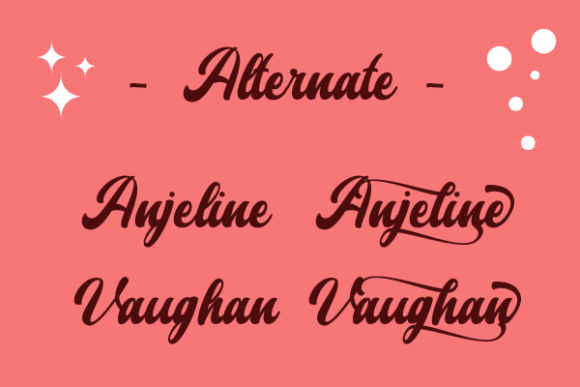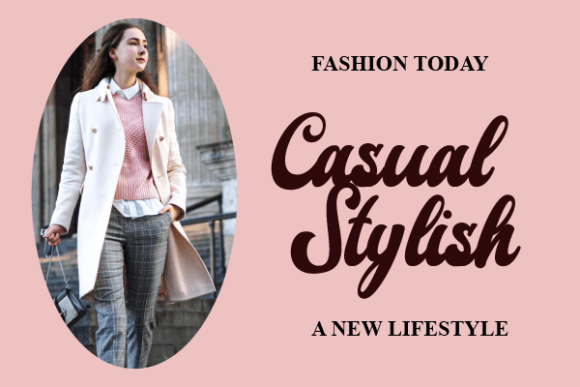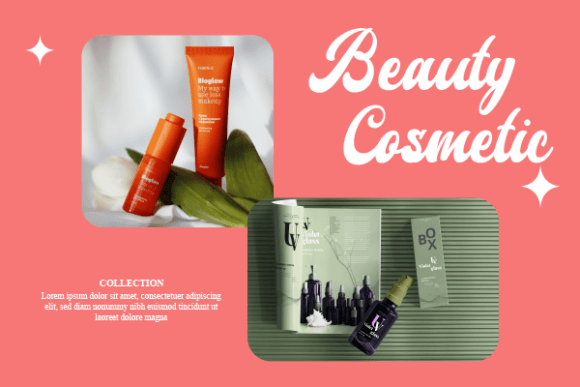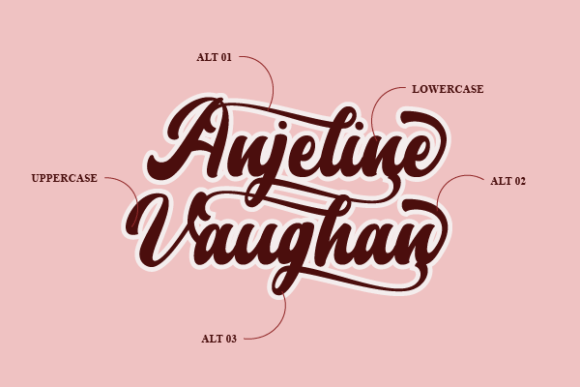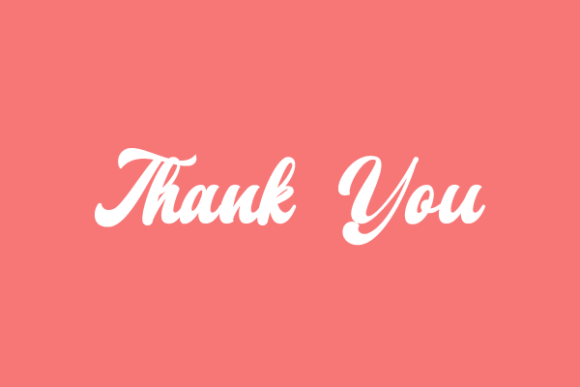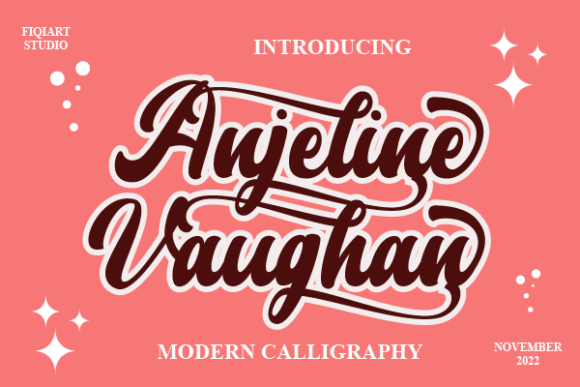
Introducing Anjeline Vaughan Font: Elevate Your Designs with Elegance
In the world of typography, a font can make or break a design. For those seeking a touch of elegance and personalization, the Anjeline Vaughan Font is a game-changer. This unique and elegant handwritten font is perfect for designers and crafters looking to add a sophisticated flair to their projects. Whether you’re working on wedding invitations, thank you cards, greeting cards, logos, or any other design that requires a personalized style, Anjeline Vaughan is the perfect choice.
What Makes Anjeline Vaughan Font Stand Out?
Anjeline Vaughan Font boasts a distinctive, handcrafted aesthetic that sets it apart from more traditional fonts. Its elegant strokes and beautiful ligatures give it a refined look that’s sure to impress. Here are a few key features that make this font a must-have for designers and crafters:
- Unique and Elegant Design: The Anjeline Vaughan Font features a one-of-a-kind, handwritten design that’s both sophisticated and charming.
- Versatility: This font is incredibly versatile and can be used on a wide range of projects, from wedding stationery to branding materials.
- PUA Encoded: The font is PUA (Private Use Area) encoded, which means you can easily access all the glyphs and ligatures, making it simple to customize your designs.
Anjeline Vaughan Font is suitable for a diverse array of design projects. Here are some ideas to get you started:
- Wedding Invitations: Add a touch of romance and sophistication to your wedding stationery with this beautiful font.
- Thank You Cards: Create personalized and heartfelt thank you cards for special occasions.
- Greeting Cards: Design stunning greeting cards for birthdays, holidays, and other celebrations.
- Logos: Use Anjeline Vaughan Font to create a unique and memorable logo for your business or brand.
- Stationery: Elevate your stationery designs with this elegant font, perfect for letterheads, notebooks, and more.
Why Choose Anjeline Vaughan Font?
With so many fonts available, why choose Anjeline Vaughan? Here are a few compelling reasons:
- High-Quality Design: This font is meticulously crafted to ensure a high level of quality and consistency.
- Easy to Use: The PUA encoding makes it simple to access and use the font’s features, even for those without extensive design experience.
- Unique Style: Anjeline Vaughan Font offers a distinctive style that’s sure to set your designs apart from the crowd.
- Support for Designers and Crafters: By choosing this font, you’re supporting the creators of unique and beautiful typography.
Tips for Using Anjeline Vaughan Font
To get the most out of Anjeline Vaughan Font, here are a few tips:
- Experiment with Sizes and Colors: Play around with different sizes and colors to find the perfect combination for your design.
- Mix and Match with Other Fonts: Combine Anjeline Vaughan Font with other fonts to create a unique and visually appealing design.
- Pay Attention to Kerning and Spacing: Adjust the kerning and spacing to ensure your text looks polished and professional.
Anjeline Vaughan Font is a beautiful and elegant handwritten font that’s perfect for designers and crafters looking to add a touch of sophistication to their projects. With its unique design, versatility, and PUA encoding, this font is a valuable addition to any design collection. Whether you’re working on wedding stationery, logos, or greeting cards, Anjeline Vaughan Font is sure to elevate your designs and leave a lasting impression.